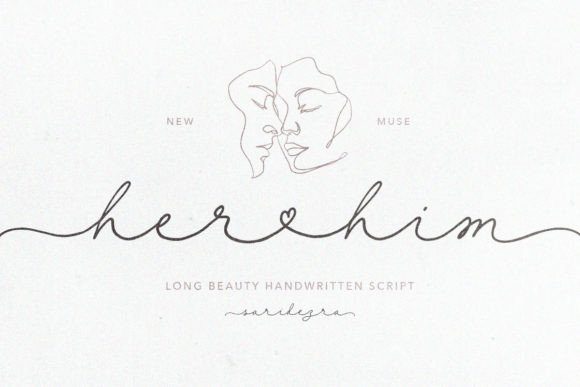
Step into a world of timeless beauty and charm with Her Him Font, a captivating script that weaves a tale of elegance and love. Handcrafted with meticulous care, this font is a symphony of flowing lines, graceful curves, and subtle intricacies that come alive in every word you write.
Unleash your creativity and let your imagination soar with Her Him Font. Its versatility extends beyond wedding invitations, making it the perfect choice for branding, logo design, and any project that demands a touch of sophistication and romance. Pair Her Him Font with a modern sans serif or a classic serif font to create visually stunning designs that will leave a lasting impression.
Elevate your designs with the enchanting lowercase alternates of Her Him Font. These delicate connectors intertwine two names or words with an undeniable sense of intimacy and connection, evoking the essence of true love. With terminal and end swashes that add an extra layer of charm, you can transform your designs into pieces of art that radiate warmth and elegance.
Experience the allure of Her Him Font, a font that embodies the timeless beauty of handwritten calligraphy. Its intricate details and effortless flow will captivate your audience, leaving them enchanted by your designs. Download Her Him Font today and embark on a creative journey where every word you write becomes a work of art.